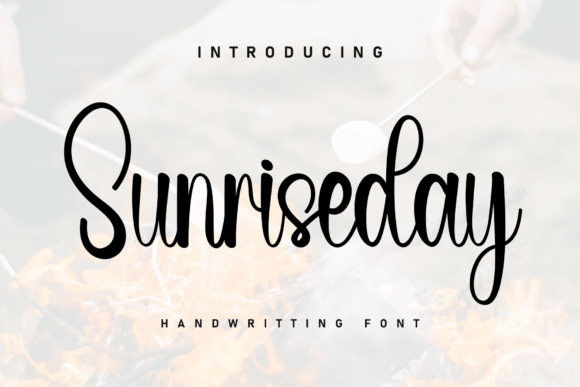
Sunriseday: A Font That Feels Like a Warm Morning
There’s something special about a font that immediately sets a mood. You know the one—it doesn’t just sit on the page; it whispers a feeling. That’s the experience with Sunriseday. This isn’t just another script typeface; it’s a premium font with a distinct personality, designed to bring a sense of comfort and gentle elegance to your work. Its characters don’t just align—they dance along the baseline, creating a flowing, organic rhythm that feels both personal and polished.
The Visual Heart of Sunriseday: Cozy, Fluid, and Authentic
At its core, Sunriseday is a handwritten font that leans into its sweet, beautiful nature. The letterforms are crafted with a soft, continuous flow, mimicking the natural movement of a pen on paper. You’ll notice subtle variations in stroke weight and charming, slightly irregular connections between letters. This isn’t a sterile, perfect script; it’s one with warmth and a human touch. The overall style sits in a sweet spot between casual and refined, making it incredibly versatile. It avoids the overly formal look of traditional script fonts while steering clear of a childish or overly casual vibe. This balance is what gives Sunriseday its wide appeal for a mature audience of creators and professionals.
Where This Creative Font Truly Shines
Understanding a font’s personality is one thing; knowing where to apply it is where the real value lies. Sunriseday excels in projects where you want to inject warmth, approachability, and a personal connection. Think of it as the typographic equivalent of a handwritten note or a friendly smile.
For brand identity, it’s a powerful tool for businesses that want to appear friendly, artisanal, or service-oriented. Imagine it on the logo for a boutique bakery, a wellness coach’s website header, or the packaging for a handmade skincare line. It instantly communicates care and authenticity. In editorial design, it can elevate a magazine’s pull quotes, chapter titles, or feature article headlines, adding a layer of human interest that draws readers in. For packaging design, its legibility at medium sizes makes it perfect for product names, taglines, or descriptive copy that needs to feel inviting.
Digital creators will find it invaluable for social media graphics. A quote card set in Sunriseday feels more personal and engaging than one set in a standard sans serif font. It works beautifully for Instagram stories, Pinterest pins, and YouTube thumbnails where grabbing attention with a friendly tone is key. For web design, it’s an excellent choice for hero section headlines, call-to-action buttons, or sidebar widgets, especially when paired with a clean, highly readable body font.
Beyond commercial use, it’s a fantastic design asset for personal projects. Wedding invitations, greeting cards, event programs, and personal blogs gain an instant uplift from its charming character. The key is to use it where its personality can be appreciated without compromising clarity.
Practical Guidance for Using Sunriseday Effectively
Choosing the right creative font is just the start. Using it effectively is what separates good design from great design. Here’s how to integrate Sunriseday into your workflow with confidence.
First, evaluate the project fit. Ask yourself: does the project’s tone align with warmth and personality? If you’re designing a legal firm’s annual report, Sunriseday is likely the wrong choice. If you’re creating a menu for a cozy café, it’s perfect. Always let the project’s goals and audience guide your typographic decisions.
Next, master the art of font pairing. Because Sunriseday is a display font with strong character, it pairs best with neutral, understated companions. A classic serif font like Playfair Display can create an elegant, sophisticated contrast. A clean sans serif font like Montserrat or Lato provides a modern, balanced foundation that lets the headlines shine. Avoid pairing it with other ornate or highly stylized fonts, as this will create visual chaos. A good rule of thumb: use Sunriseday for headlines and short phrases, and let a simpler typeface handle body copy.
Always test for readability. While Sunriseday is designed for clarity, its flowing nature means it’s best suited for larger text sizes. Use it for headlines, subheadings, and short bursts of text. For long paragraphs or small-scale digital text, opt for a more conventional modern typography solution. Test your designs at the intended viewing size—whether on a mobile screen or a printed poster—to ensure the message is easily absorbed.
Finally, check the technical details. Review the included styles and character sets. Does the font include multilingual support, ligatures, or alternate characters? These features can add subtle refinements to your work. And crucially, ensure you understand the commercial licensing terms. For any professional or client project, using a properly licensed commercial font is non-negotiable. Verify that your license covers all intended uses, from digital ads to printed merchandise.
In the end, Sunriseday is more than just a typeface